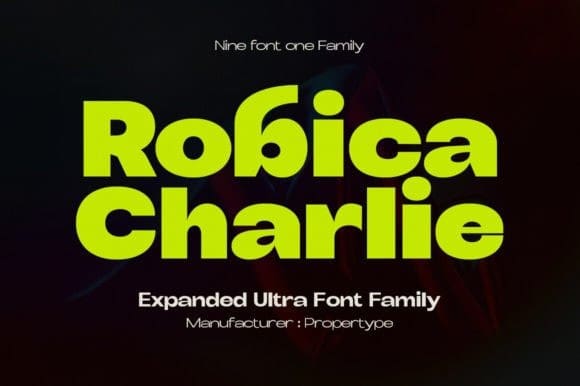
Robica Charlie Font Family
Robica Charlie Font Family, is a sans Expanded family in 9 styles. The strong geometric character combines with a modern, sharp cut, resulting in a strong font with a distinctive personality. The bold concept of repeating basic shapes creates a clear rhythm and makes the set easy to read and suitable for everyday use.
Robica Charlie Comes in 9 weights, each designed to fill space without screaming, performing smoothly and confidently. The tall X height and strong capitals maintain clear visibility across all weights and have been optically corrected for easier reading. The matching tilt at 12º helps provide complete expression.